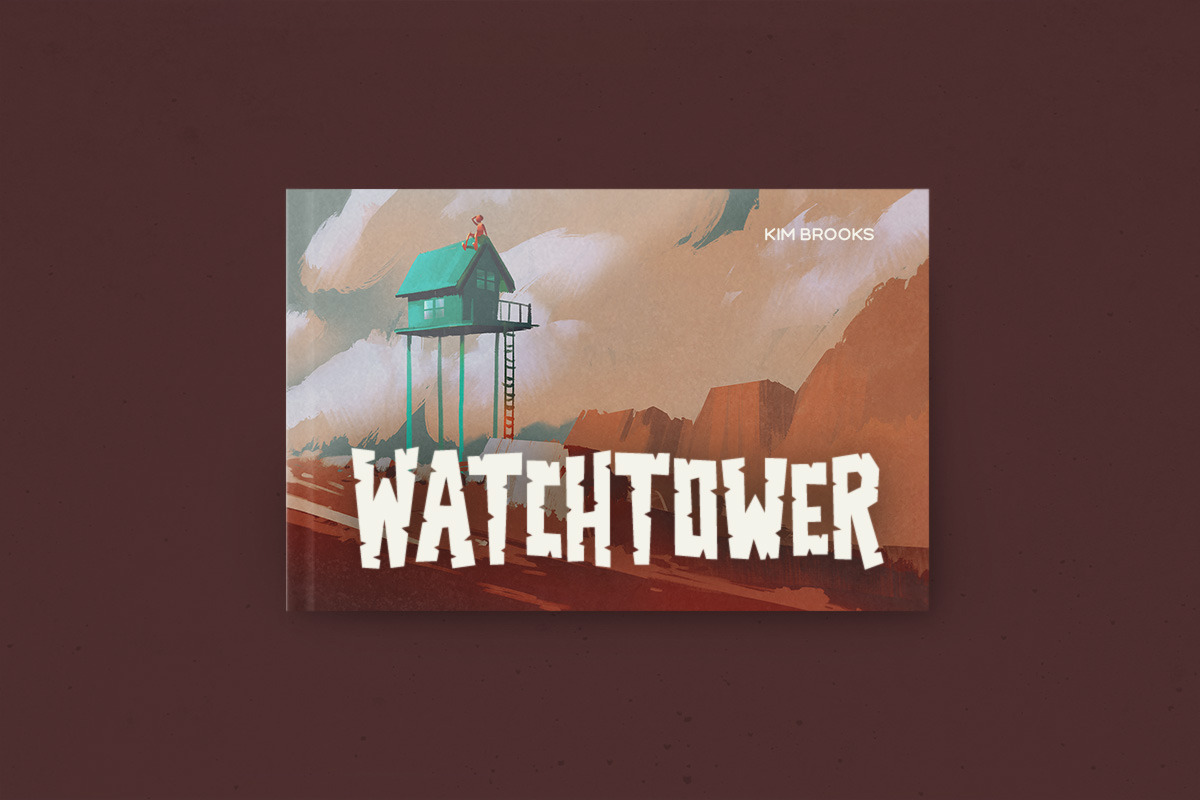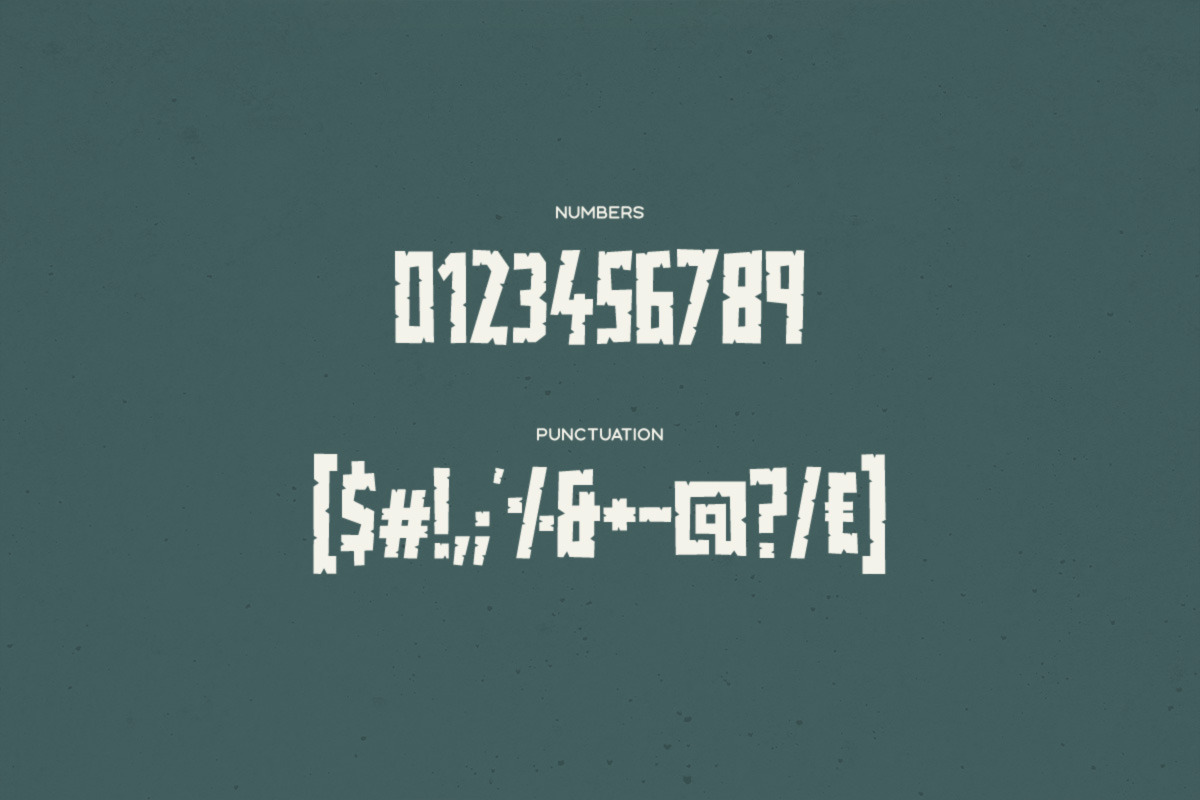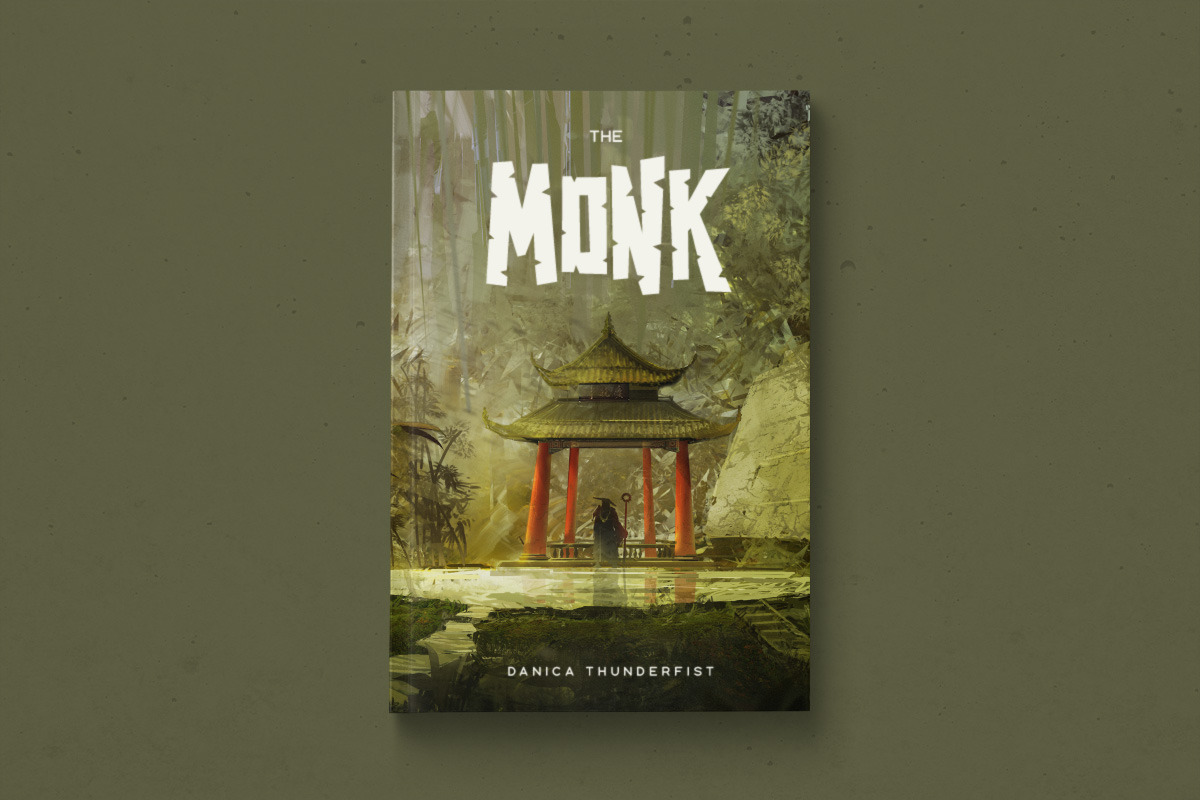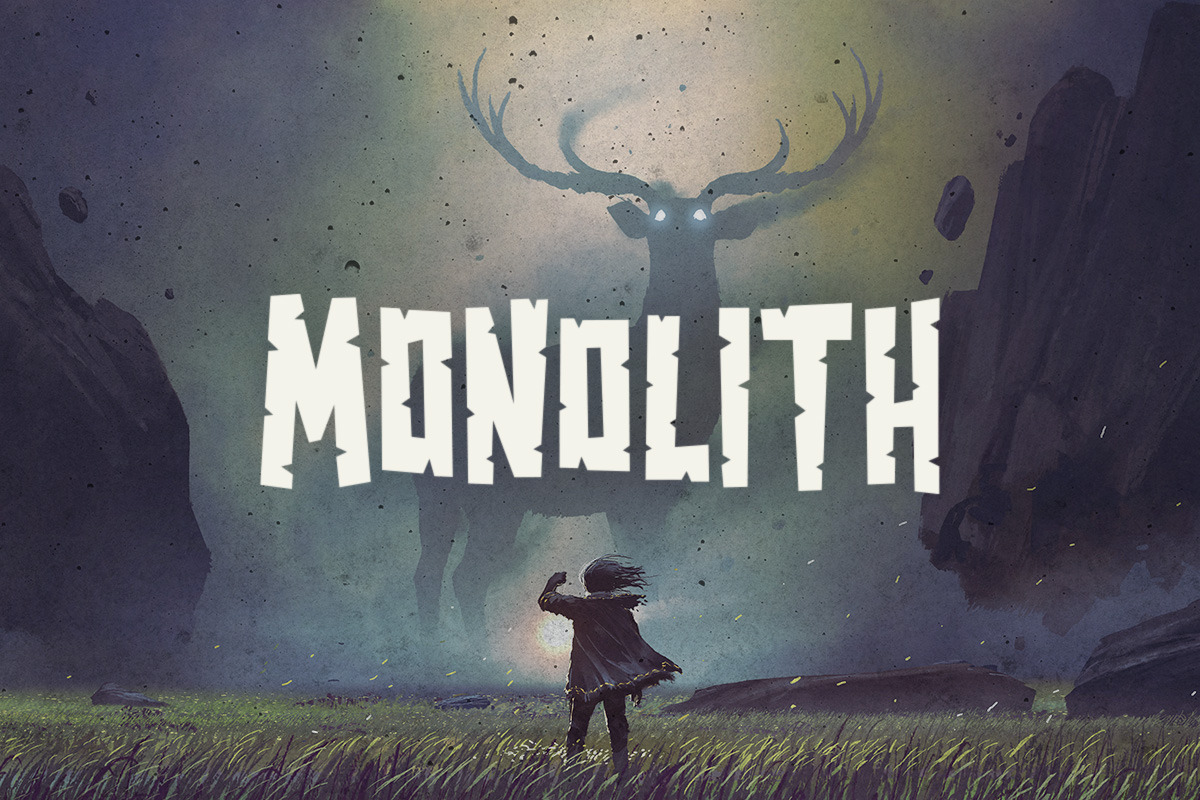
Monolith Typeface
Monolith is a chipped font with no curves that has a hard-carved look. It includes an alternate letter for every character (toggled via Caps Lock).